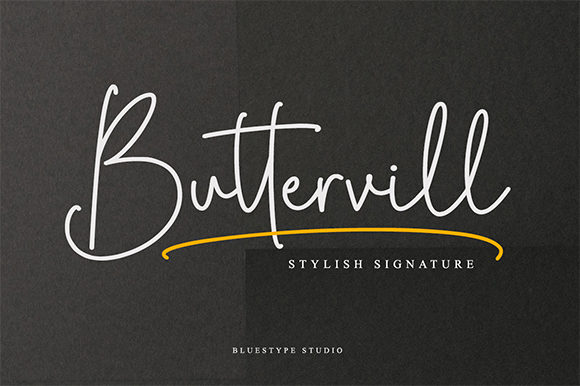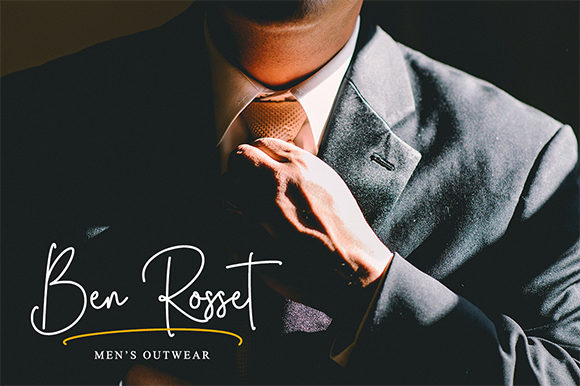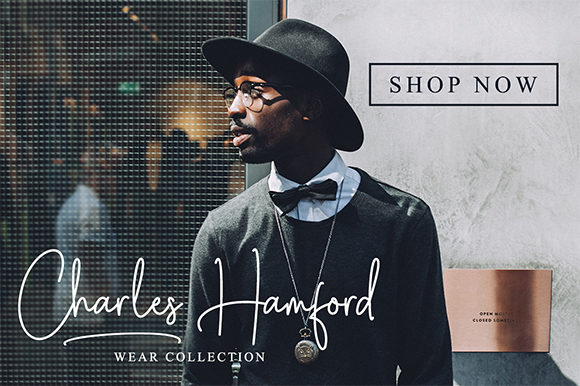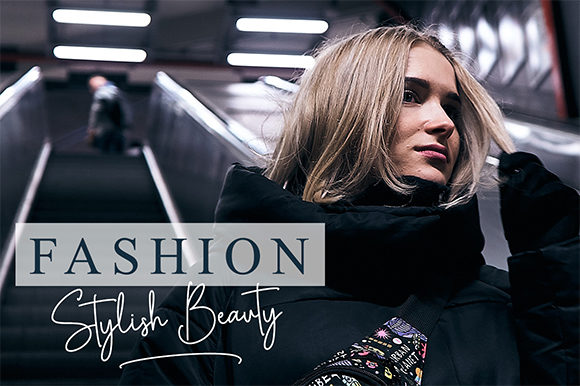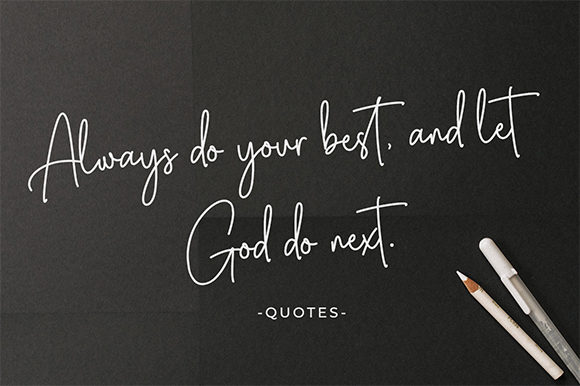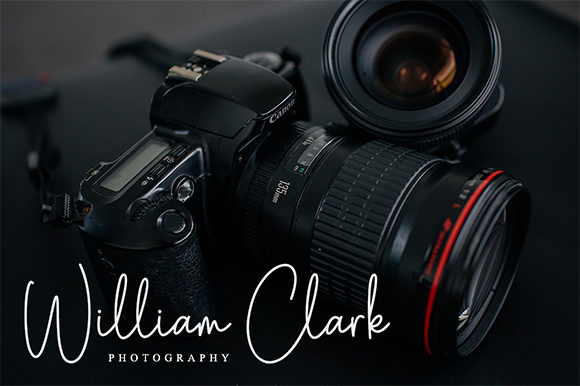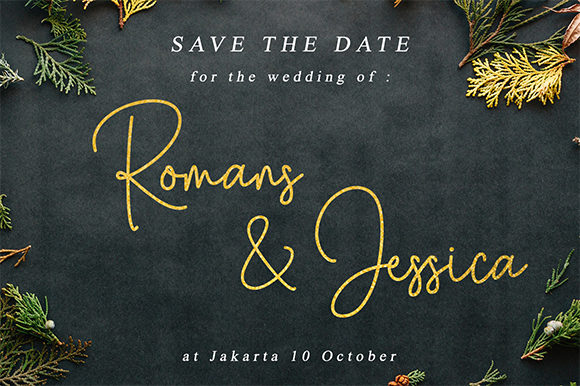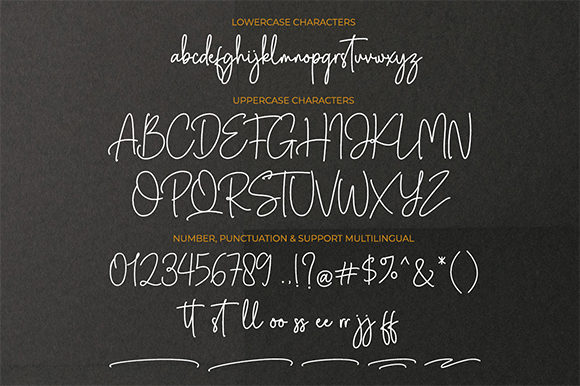
Buttervill Font
About Buttervill Font
Buttervill is a sweet and simple script that will easily add a dash of authenticity to your next creative endeavor.